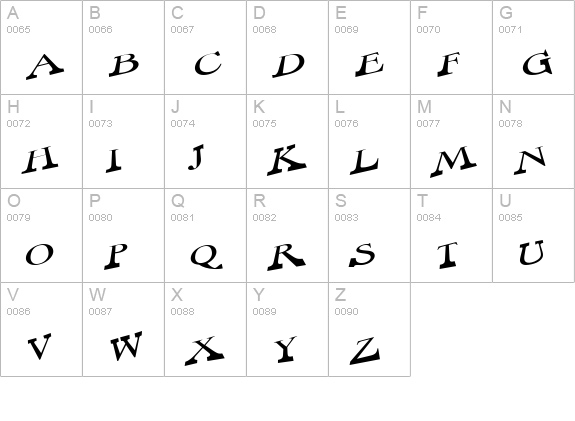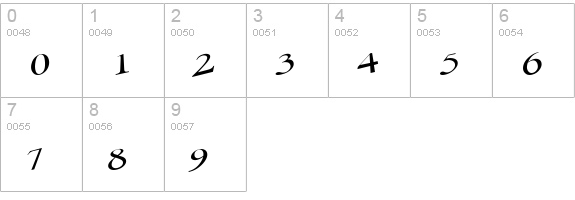
No Control Font Details
Introducing No Control font, a bold and dynamic typeface that exudes power and energy. With its strong lines and edgy design, No Control is perfect for making a statement in your designs. Whether you're creating posters, logos, or social media graphics, this font is sure to grab attention and leave a lasting impression. What's even better is that No Control font is available for free download at FontsMarket.com. Yes, you read that right - you can add this striking font to your collection at no cost at all. So go ahead, unleash your creativity and give your projects that extra edge with No Control font. Download it now and let your designs stand out from the crowd.